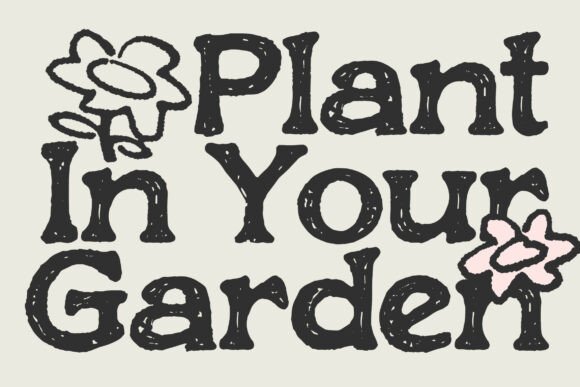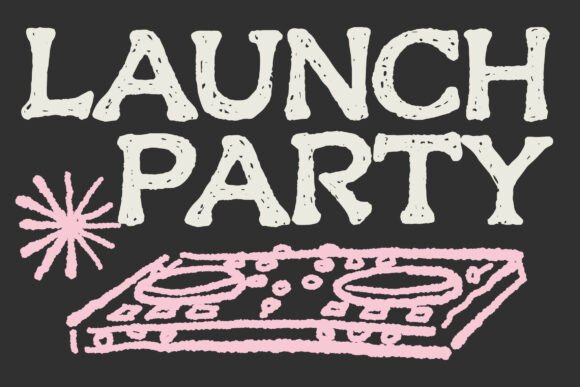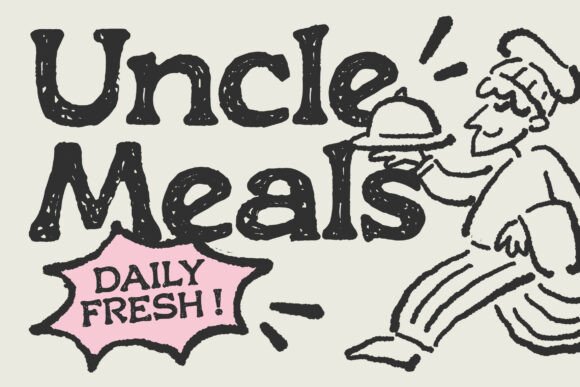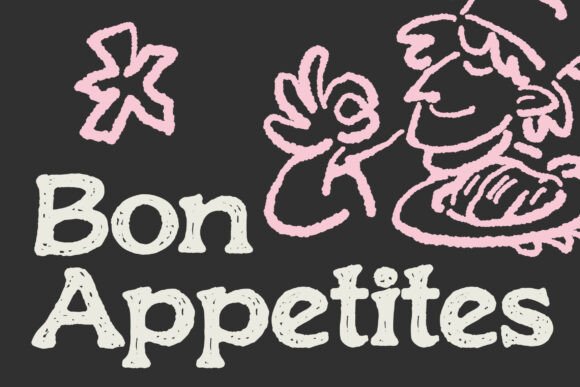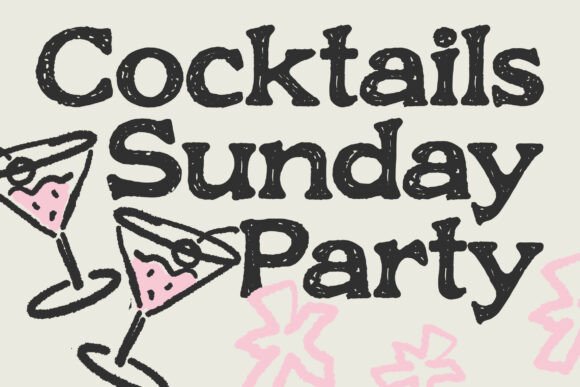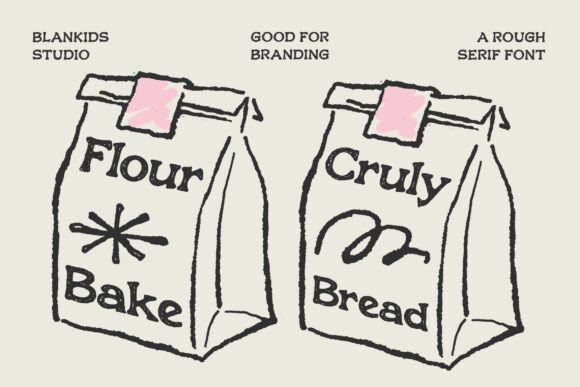
Introduction to Roghen Font Font
Fonts play a crucial role in design, and the Roghen Font font is a typeface that brings both character and versatility to any project. Whether you’re working on a branding project, a website, or a print design, the Roghen Font font offers a unique style that can elevate your work.
Roghen is a bold rough serif display font crafted to bring personality, texture, and expressive charm into your creative projects.
Inspired by hand-drawn lettering and vintage print aesthetics, Roghen combines organic imperfections with strong serif structure creating a look that feels raw, warm, and full of character Designed for creatives who want something authentic and eye-catching, Roghen delivers a handcrafted feel while maintaining excellent readability.
Key Features of Roghen Font Font
Why Choose Roghen Font Font?
The Roghen Font font is more than just a typeface – it’s a design tool that helps you communicate your message with style and clarity. Its unique character set and versatile design make it suitable for a wide range of applications, from elegant invitations to bold headlines.
With its carefully crafted letterforms and balanced proportions, the Roghen Font font ensures readability and visual appeal across all mediums.
What makes Roghen Font font special?
The Roghen Font font stands out with its unique design, exceptional readability, and versatility across various design applications.